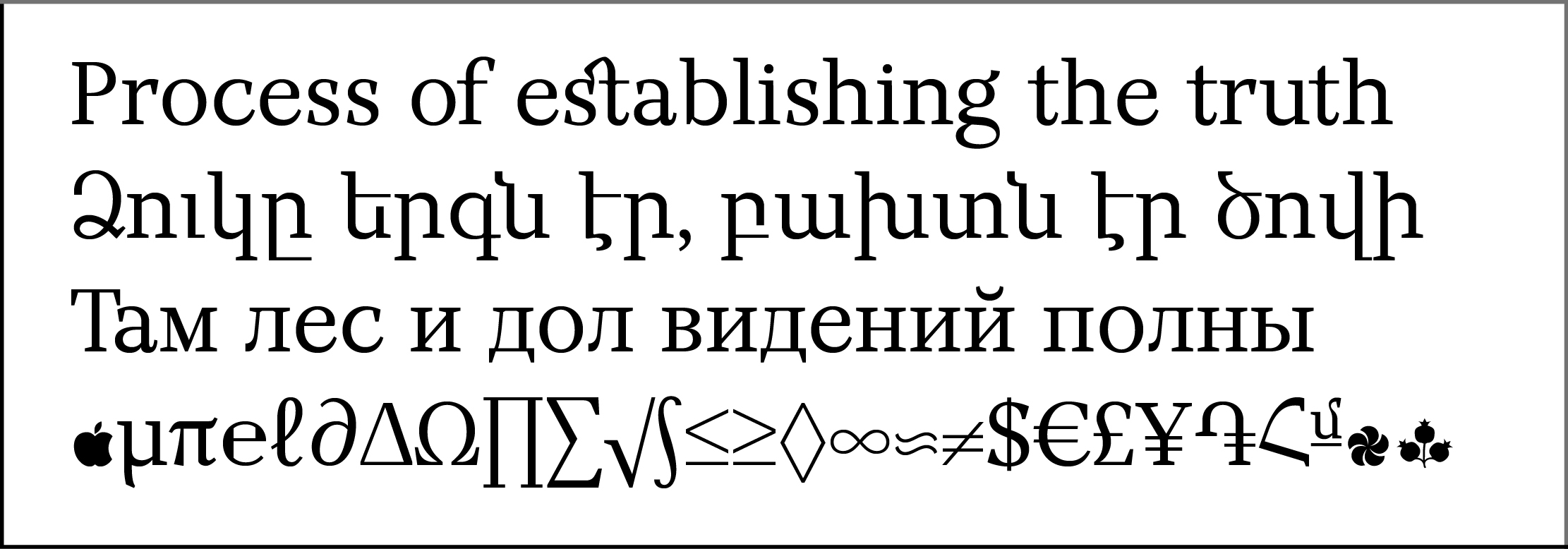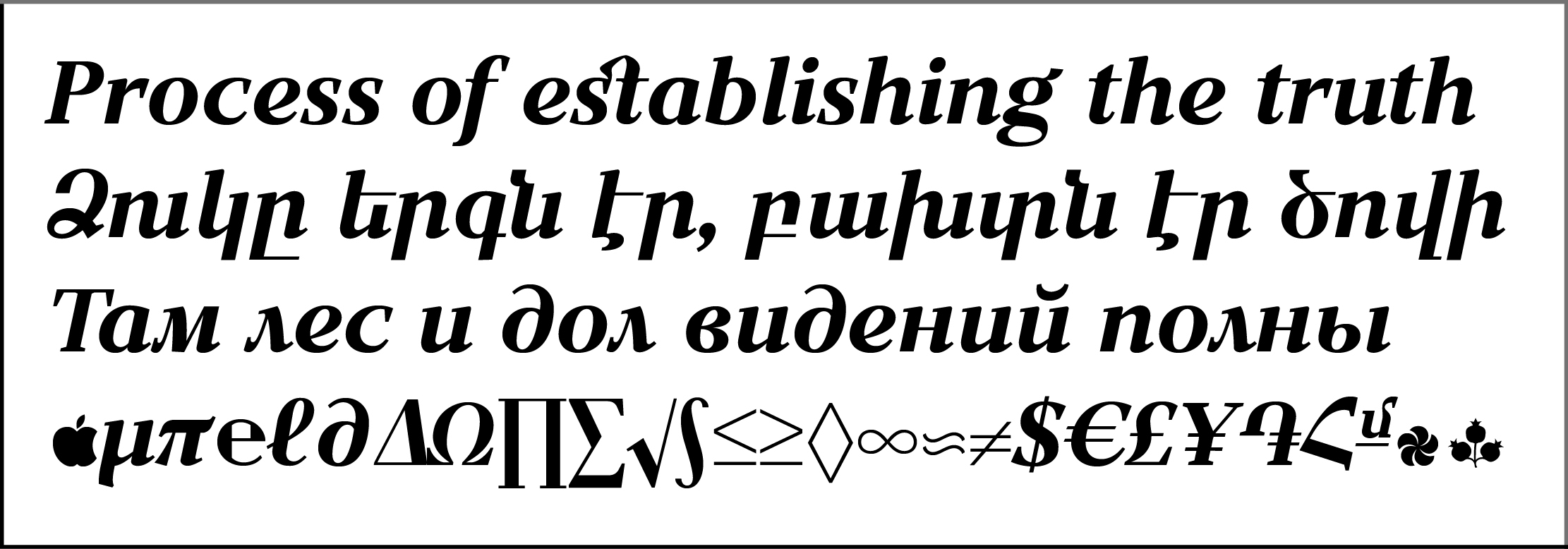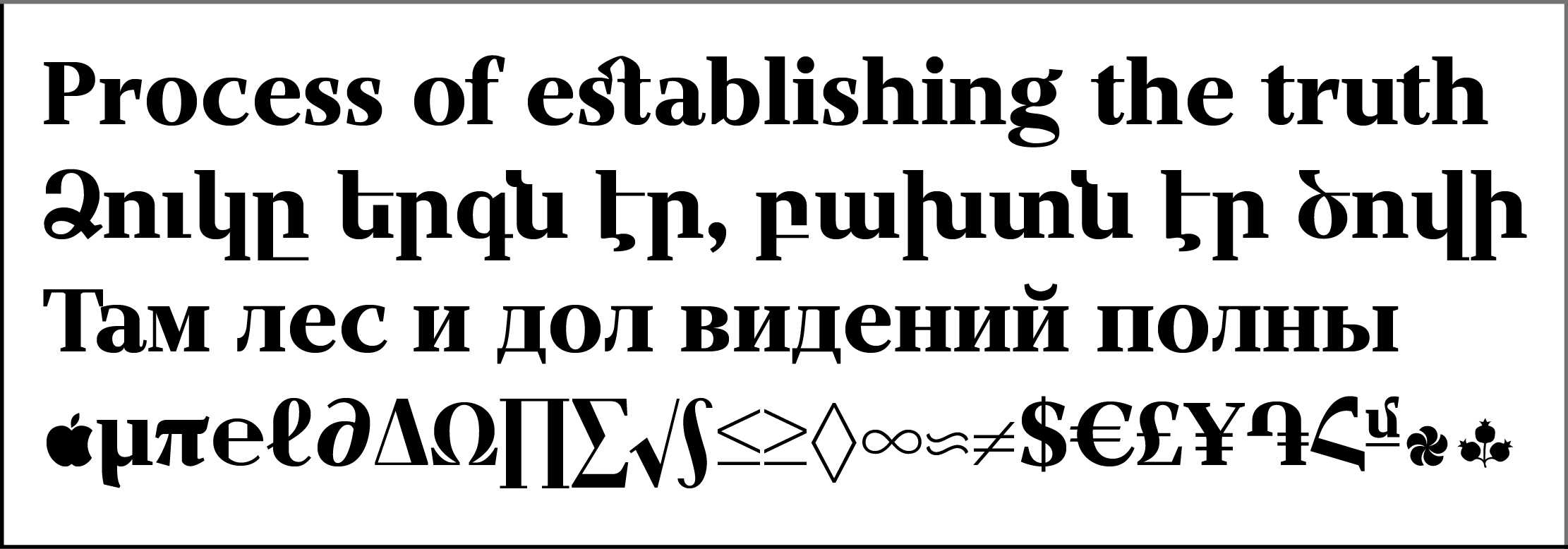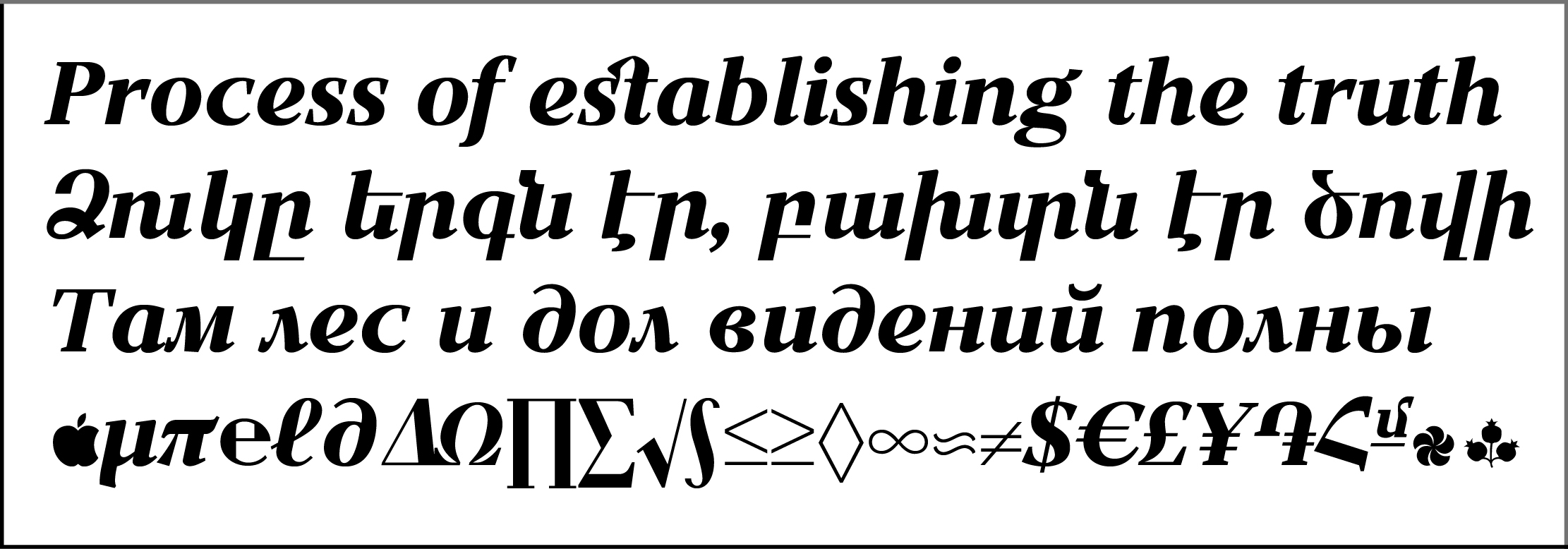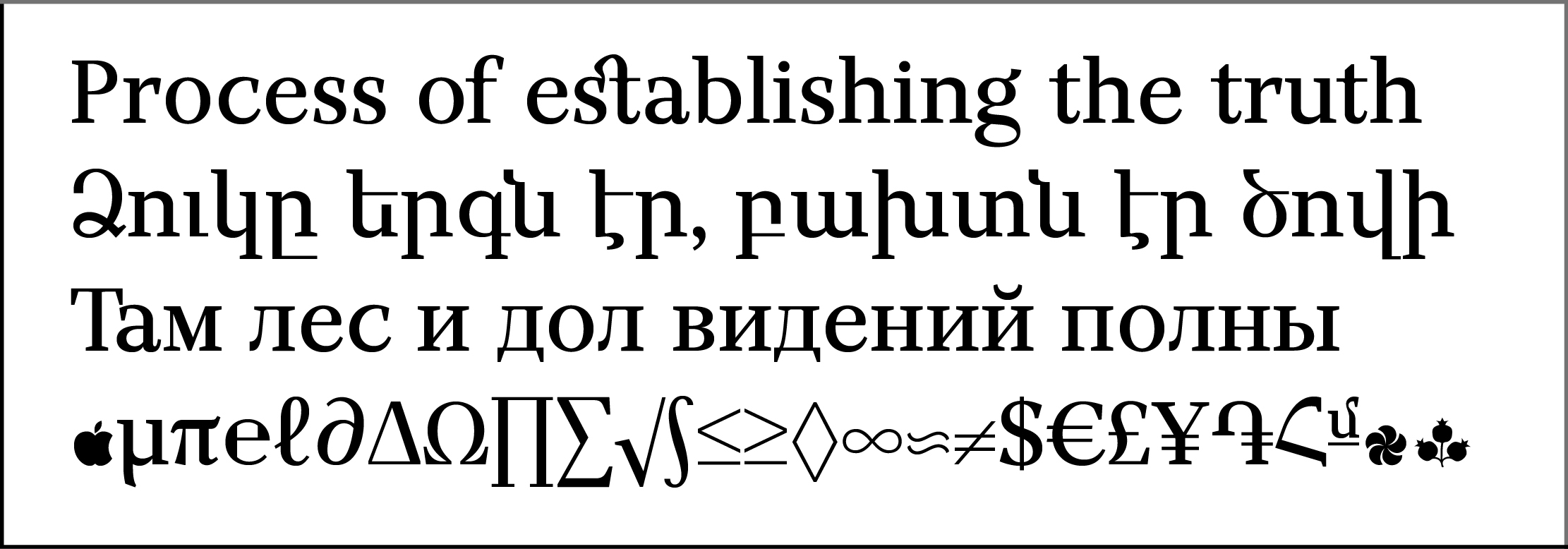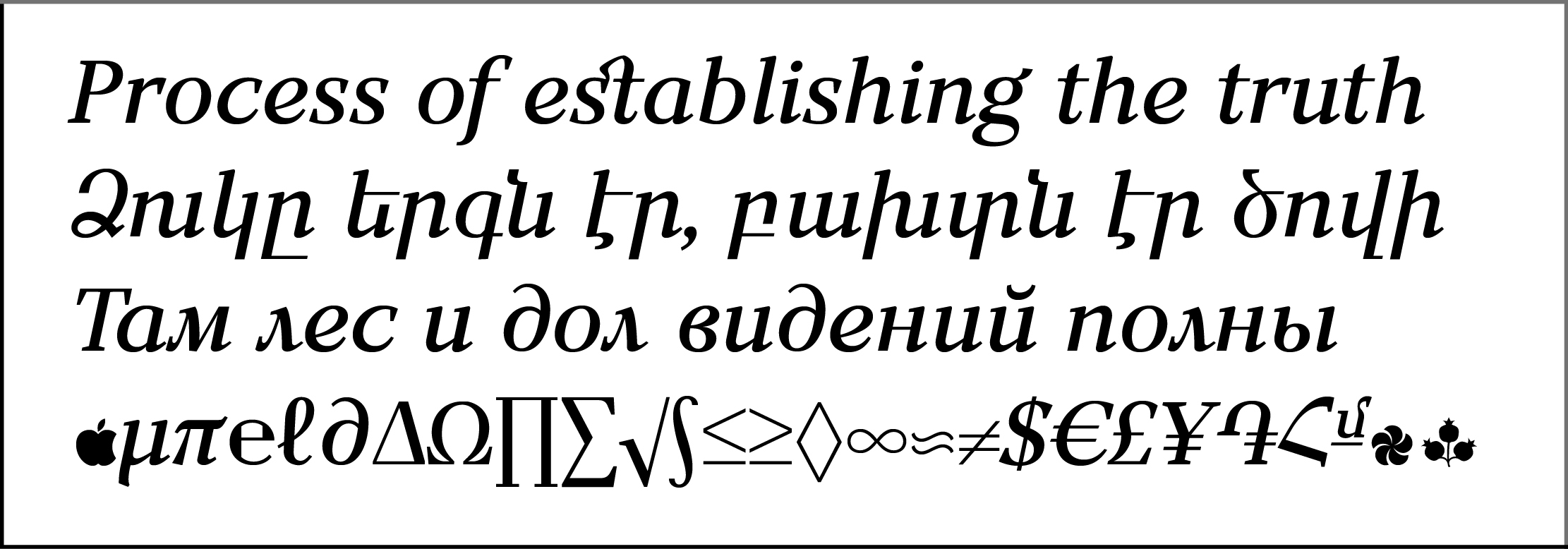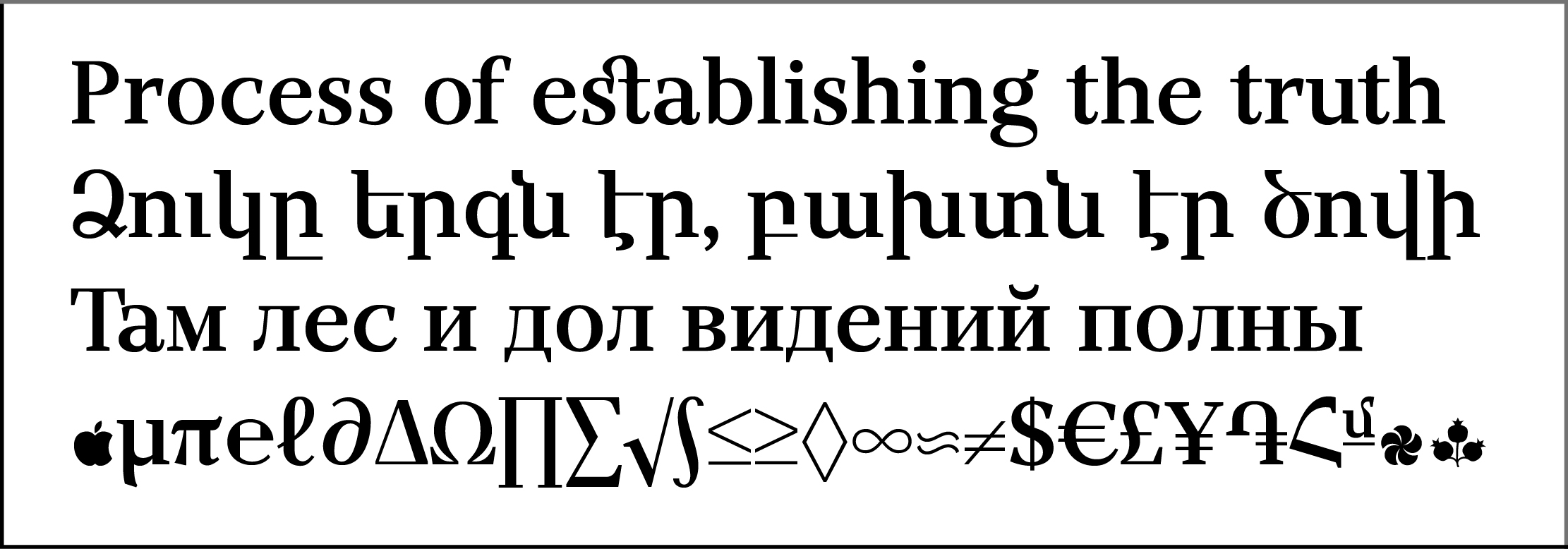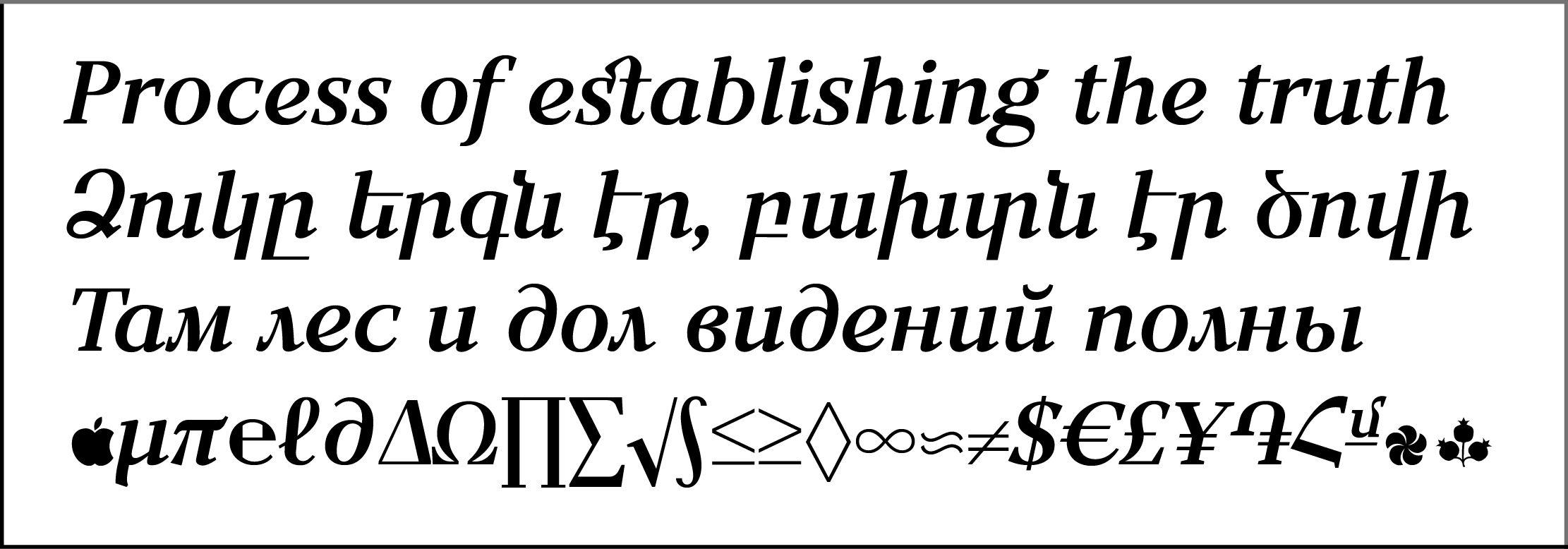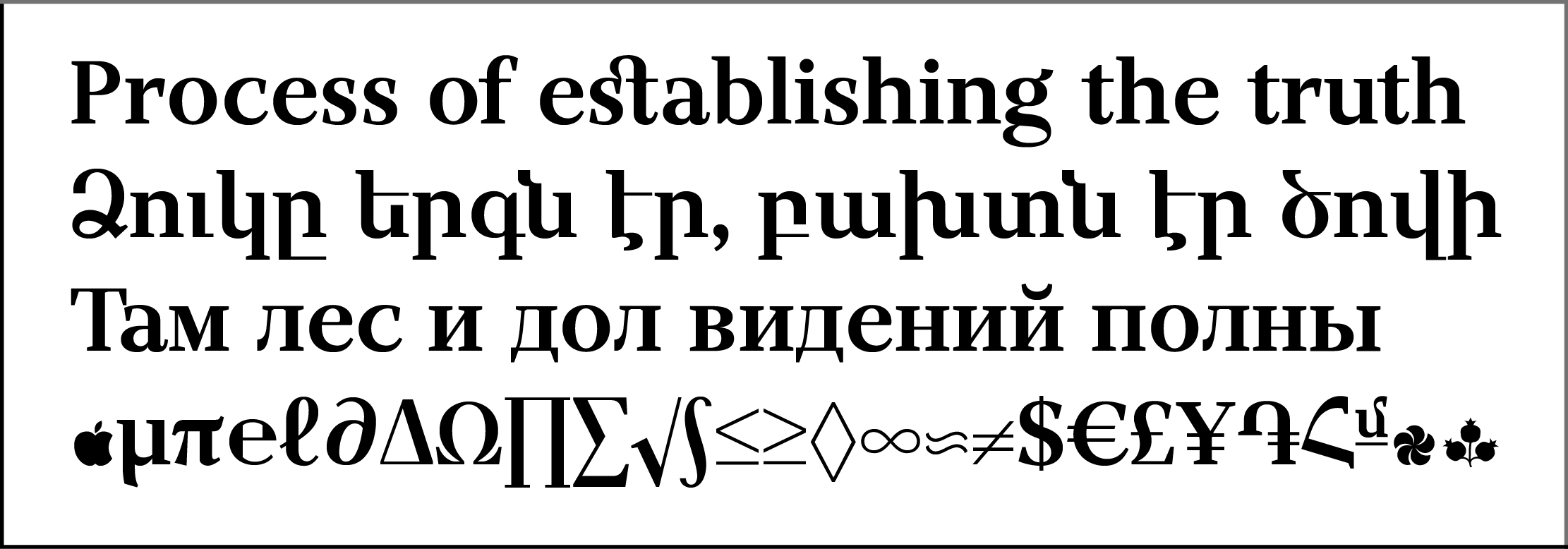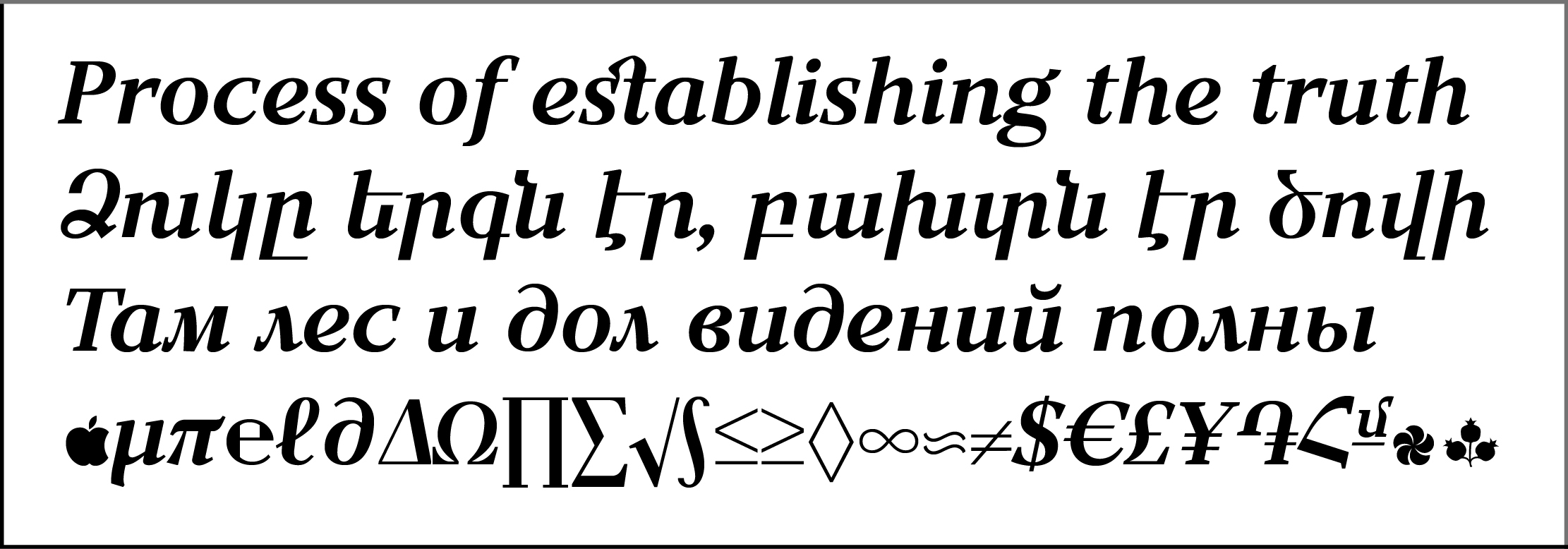
GHEA AresPro
Design date: 2025
Writing systems: Latin Pro, Armenian, Cyrillic.
Styles & Weights: Regular, Regular Italic, Medium, Medium Italic, SemiBold, SemiBold Italic, DemiBold, DemiBold Italic, Bold, Bold Italic, ExtraBold, ExtraBold Italic.
The Chess Symbols include only in GHEA AresPro Regular.
The font GHEA AresPro can be used in a Text, Display, Title, Poster and Presentation.